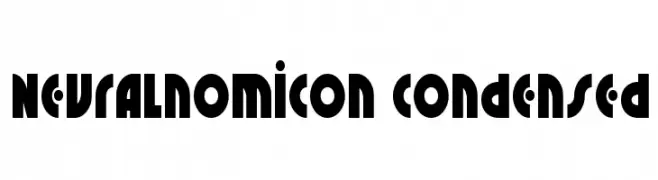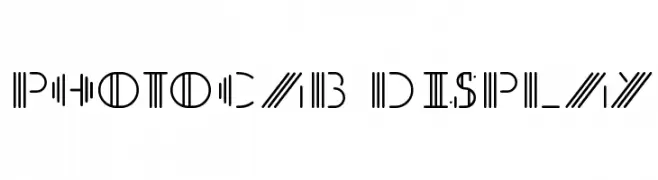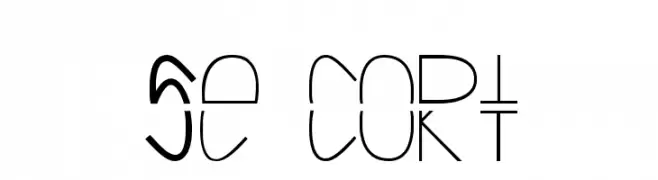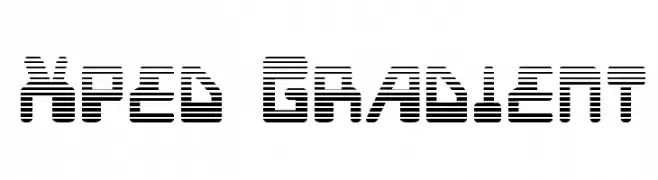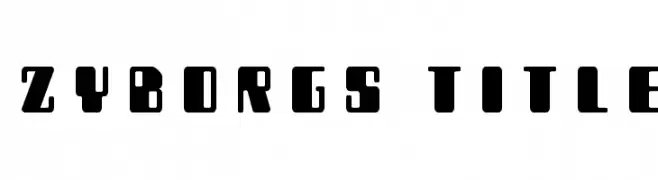
A modern, italicized font with a segmented, gradient design ideal for tech-themed projects.
A bold, geometric font with a futuristic and condensed design.
A futuristic, geometric font with bold, angular letterforms.
A futuristic, gradient-lined font with a bold, digital aesthetic.
A bold, geometric font with a futuristic, digital style.
A modern, geometric font with parallel lines creating a dynamic and futuristic look.
A futuristic, dot-based font with a digital, modern look.
An abstract, geometric design using dots and lines for character representation.
A bold, geometric font with spiked accents and a modern, digital aesthetic.
A futuristic and geometric font with unique letterforms and a modern aesthetic.